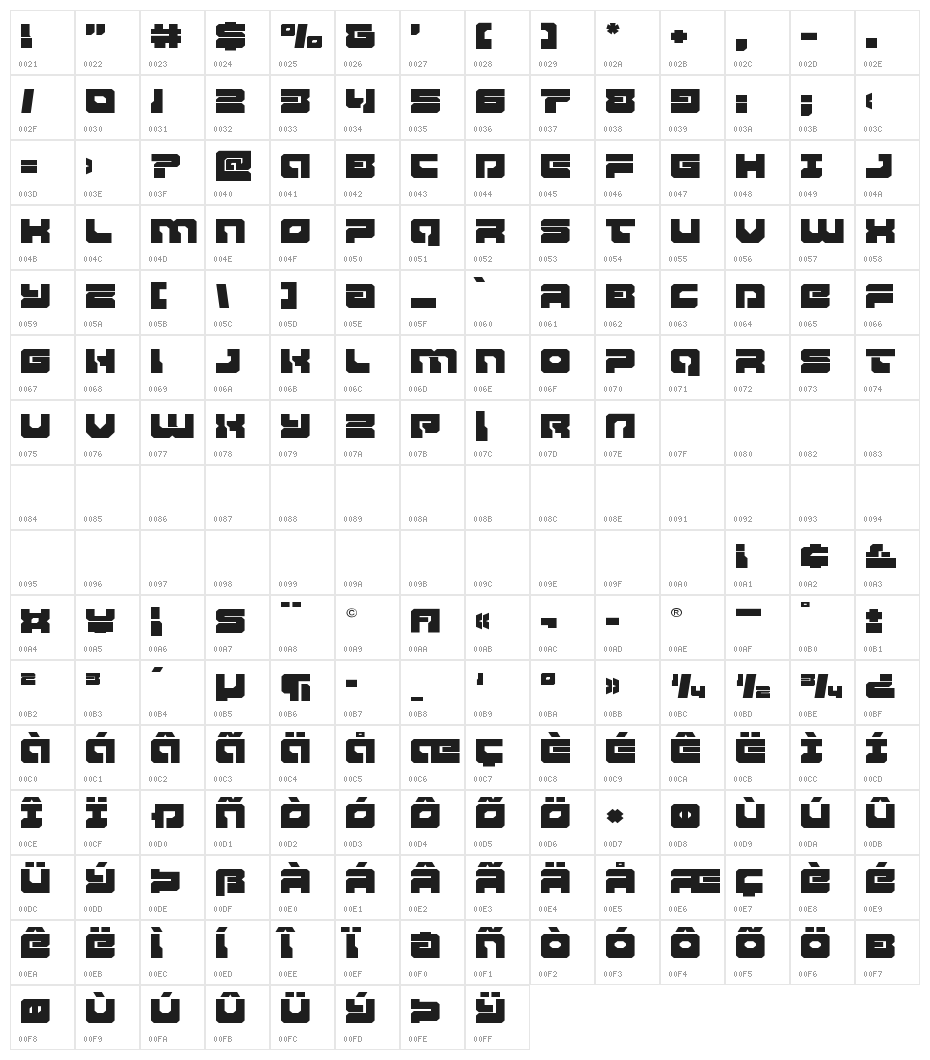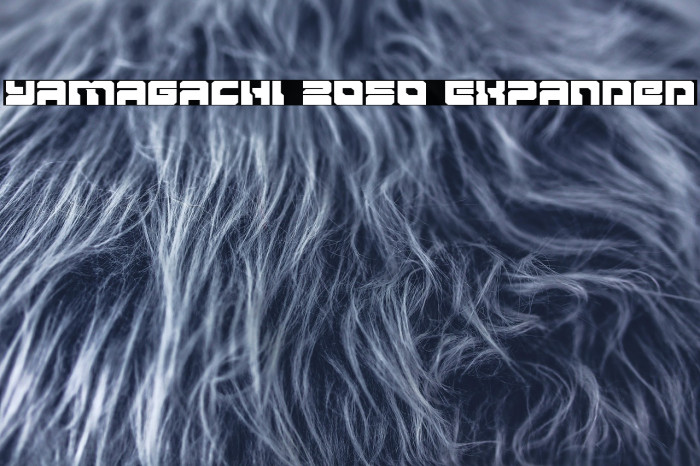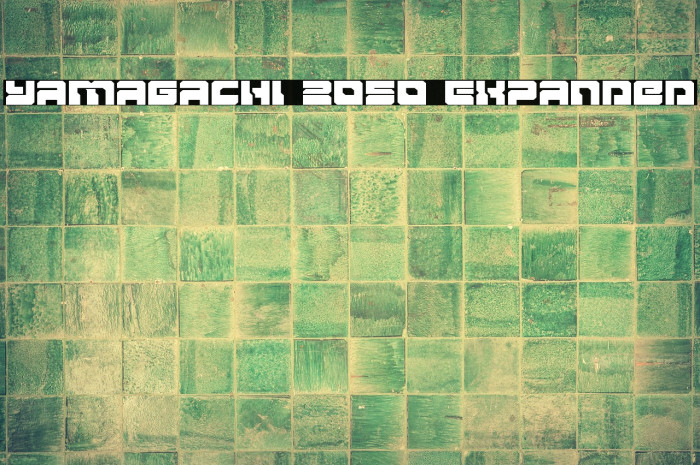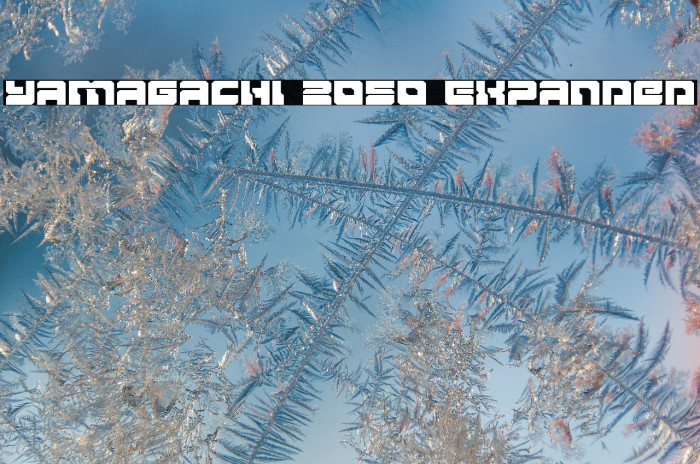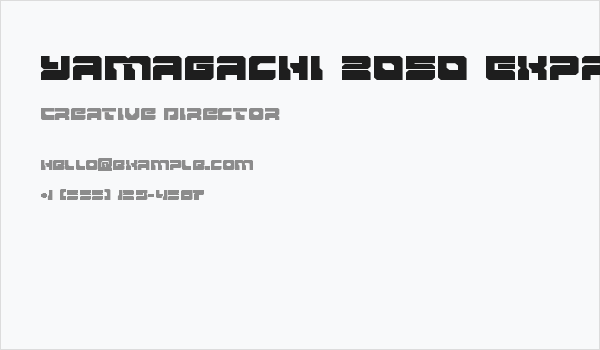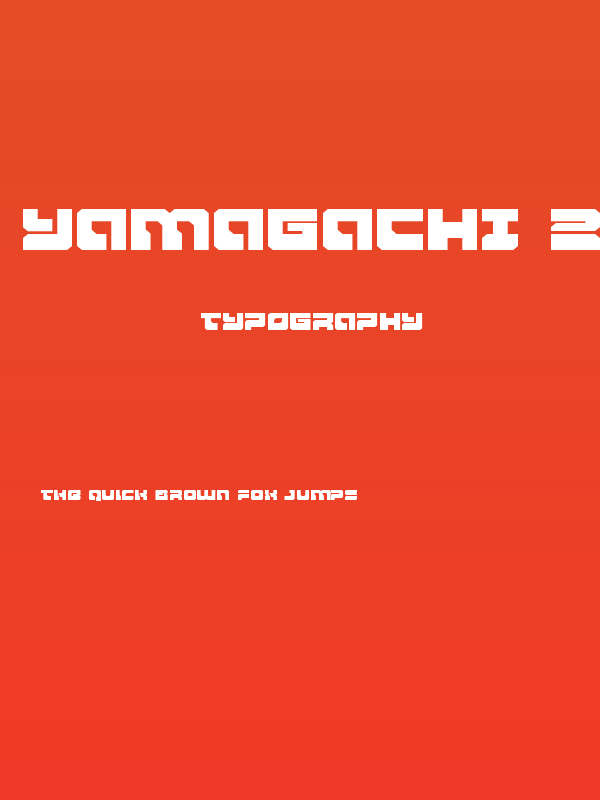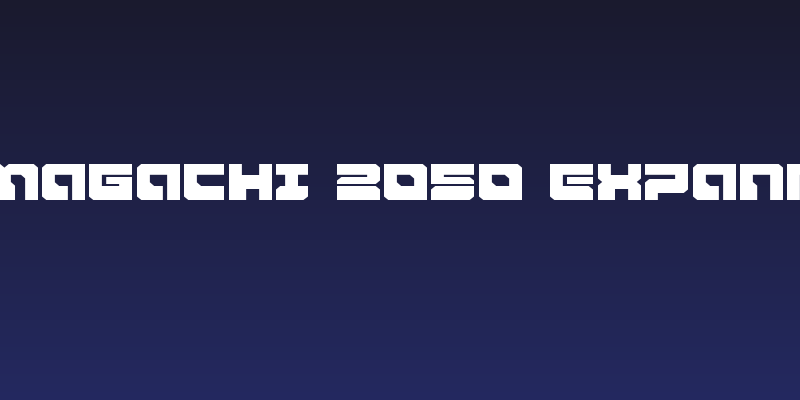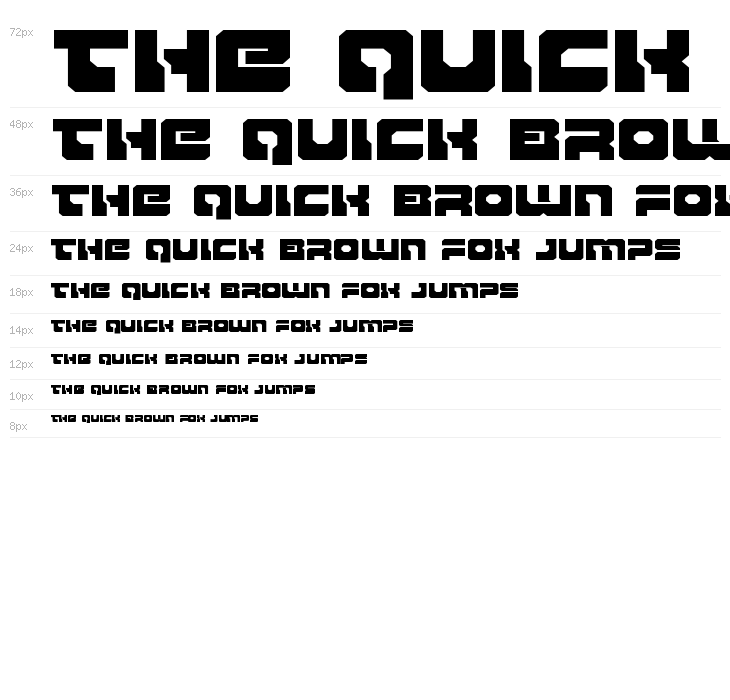
Yamagachi 2050 Expanded Font
Yamagachi 2050 Expanded Description
This font features a bold and futuristic design with a distinctly geometric and angular style. The characters are constructed with thick, block-like forms that convey a sense of strength and modernity. Each letter and number is crafted with sharp edges and a uniform width, creating a cohesive and structured appearance. The font's unique design is further emphasized by its expanded width, which gives it a commanding presence on the page. The special characters maintain the same bold and angular aesthetic, ensuring consistency across all elements.
| Proposed Projects | Ideal for sci-fi themed projects, technology branding, video game titles, and futuristic posters. |